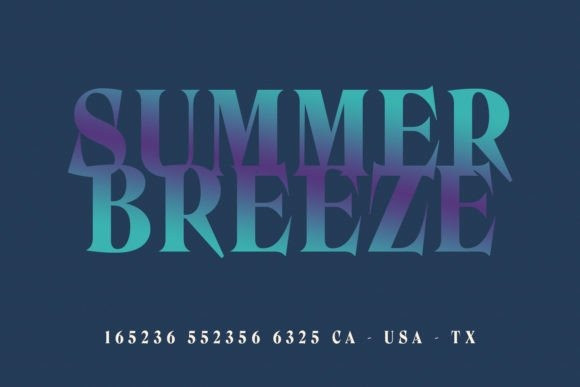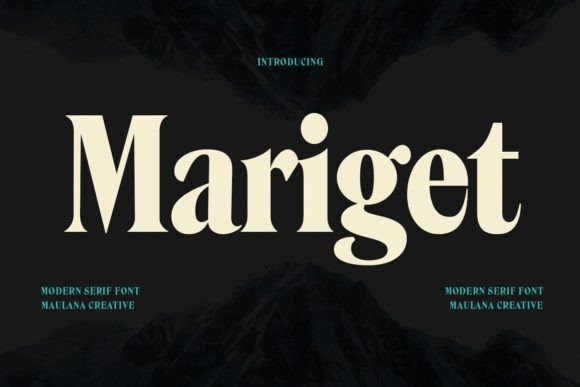
Mariget Font
Mariget Font is a modern High Contrast Condensed Serif display font. Bold stroke, fun character with a bit of ligatures and stylistic. To give you an extra creative work. Mariget font support multilingual more than 100+ language. This font is good for logo design, Social media, Movie Titles, Books Titles, a short text even a long text letter and good for your secondary text font with script or serif. Make a stunning work with Marigetfont.